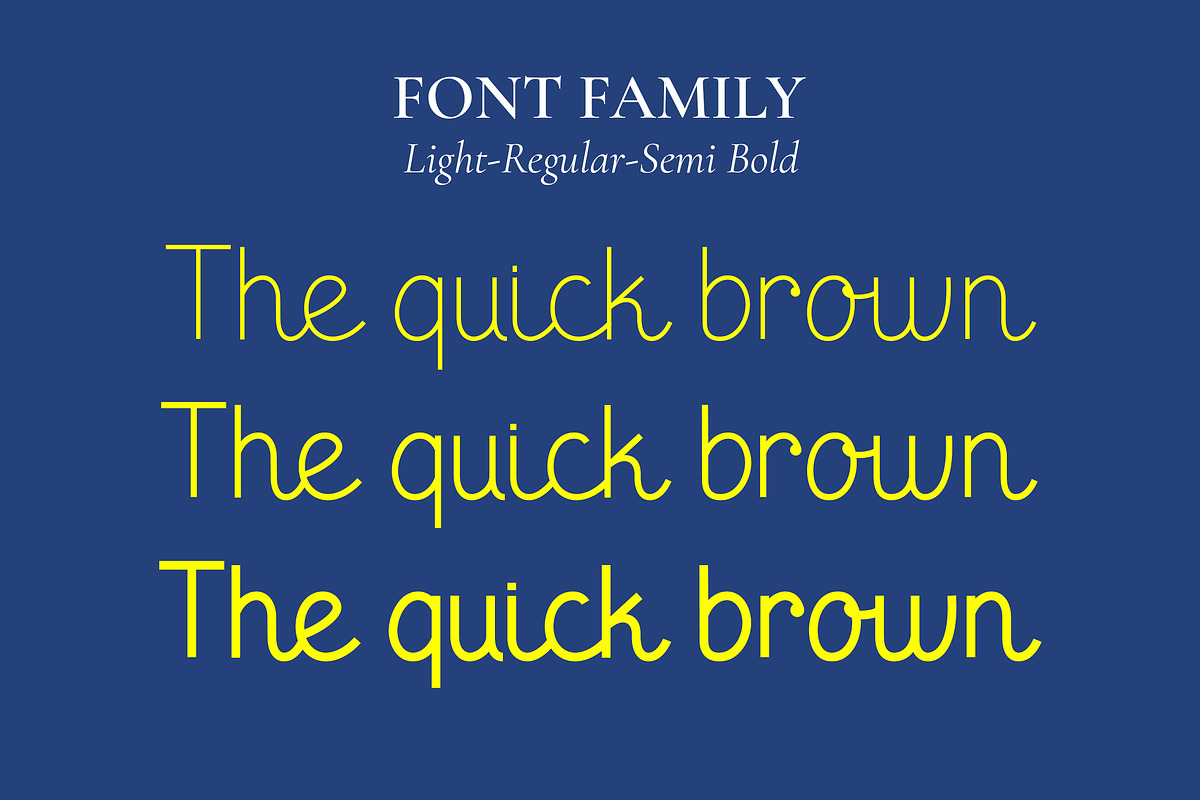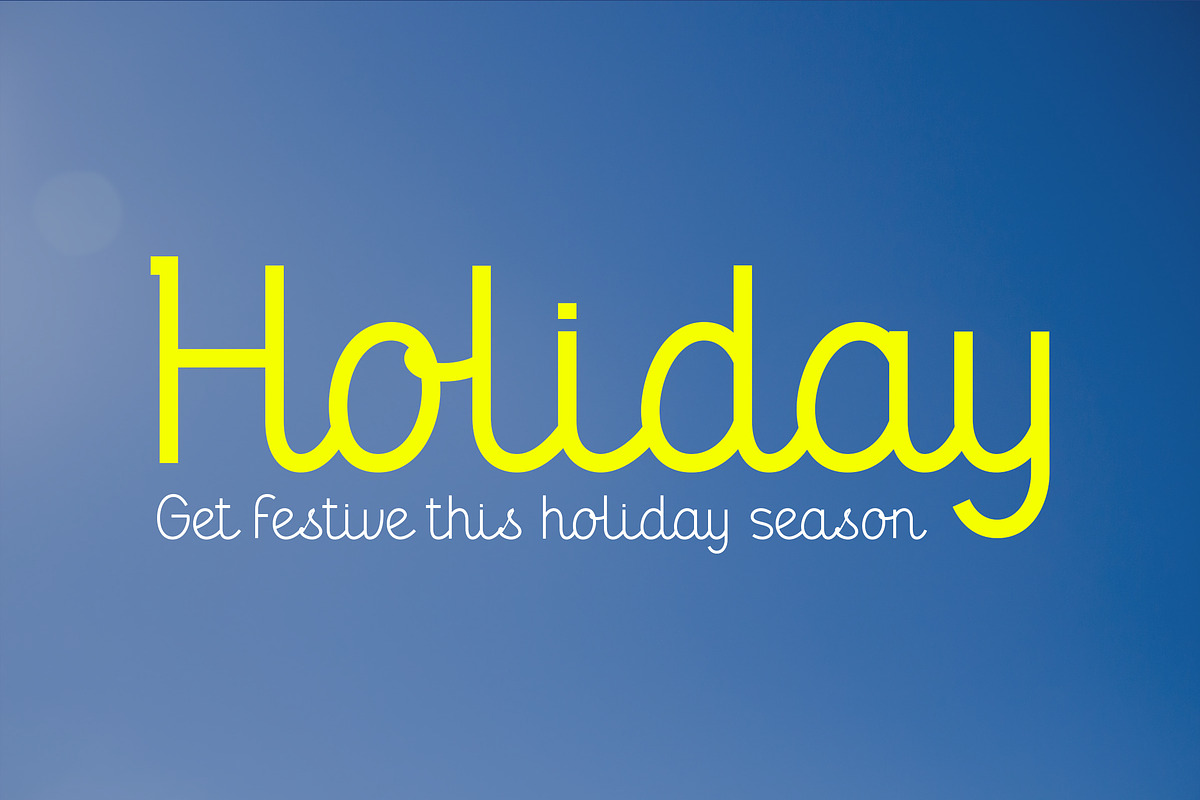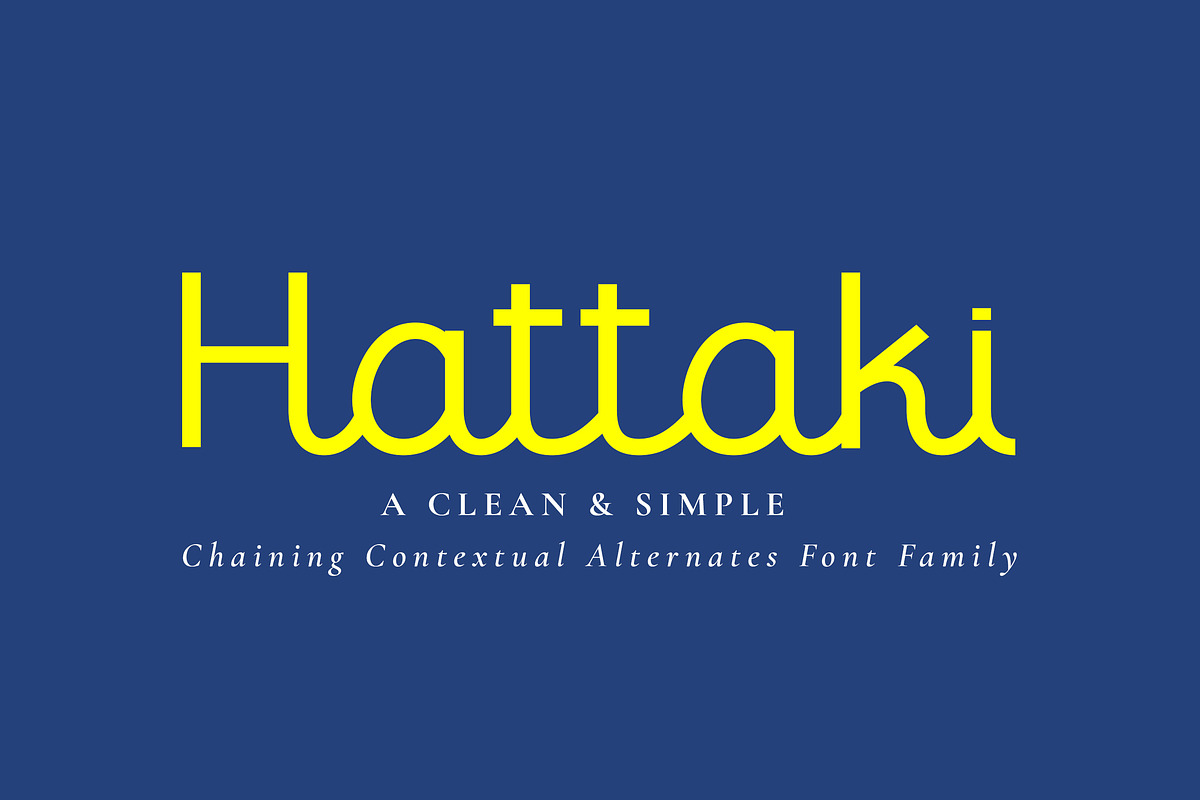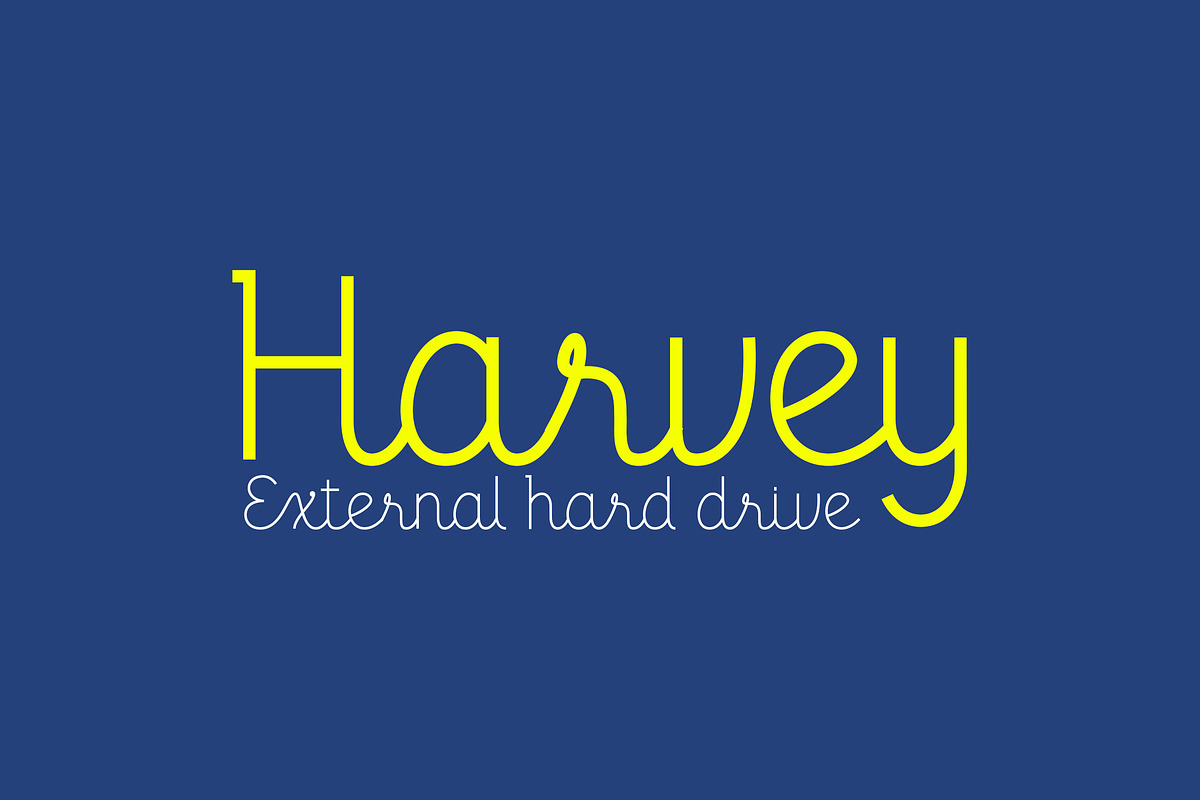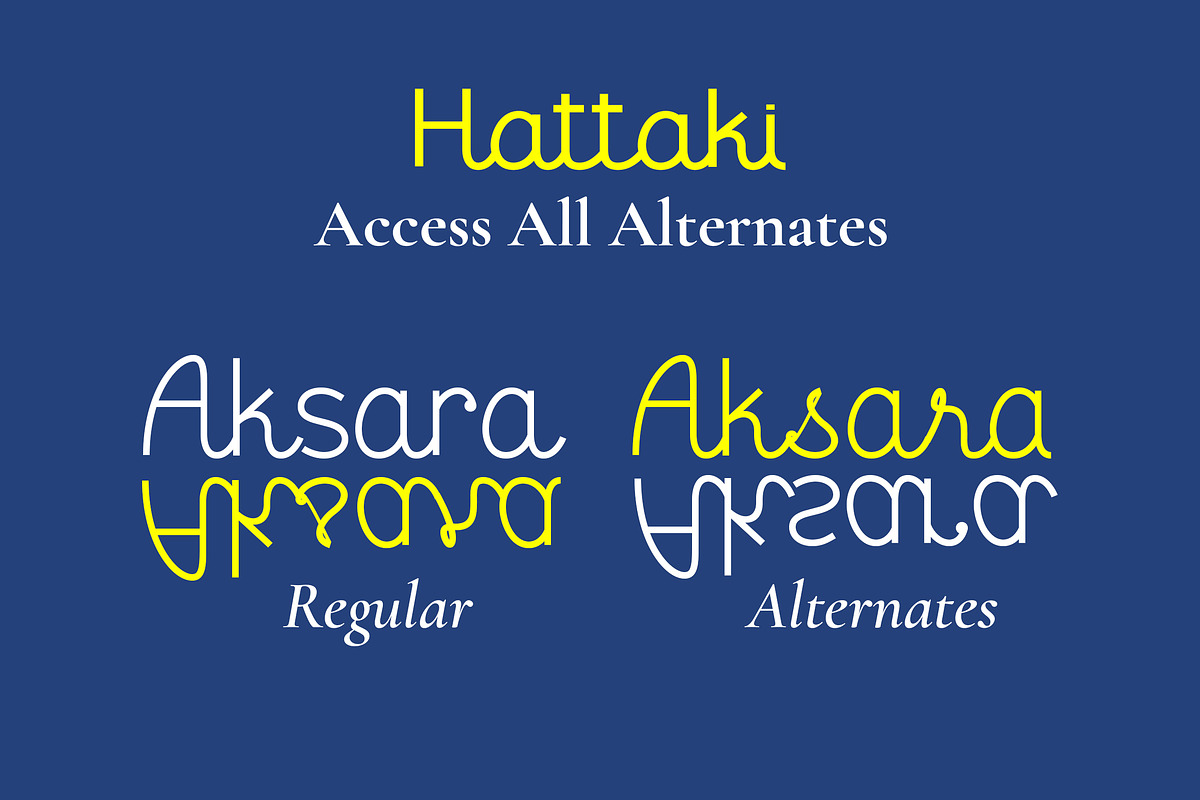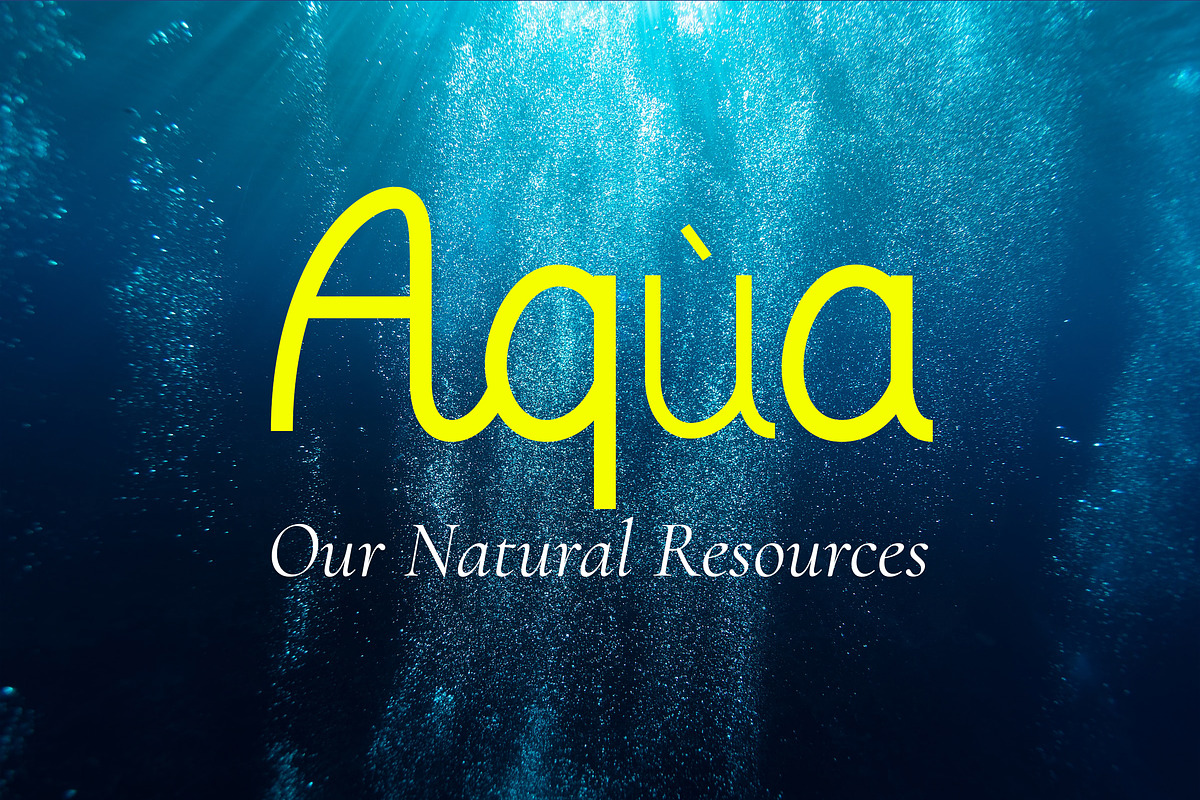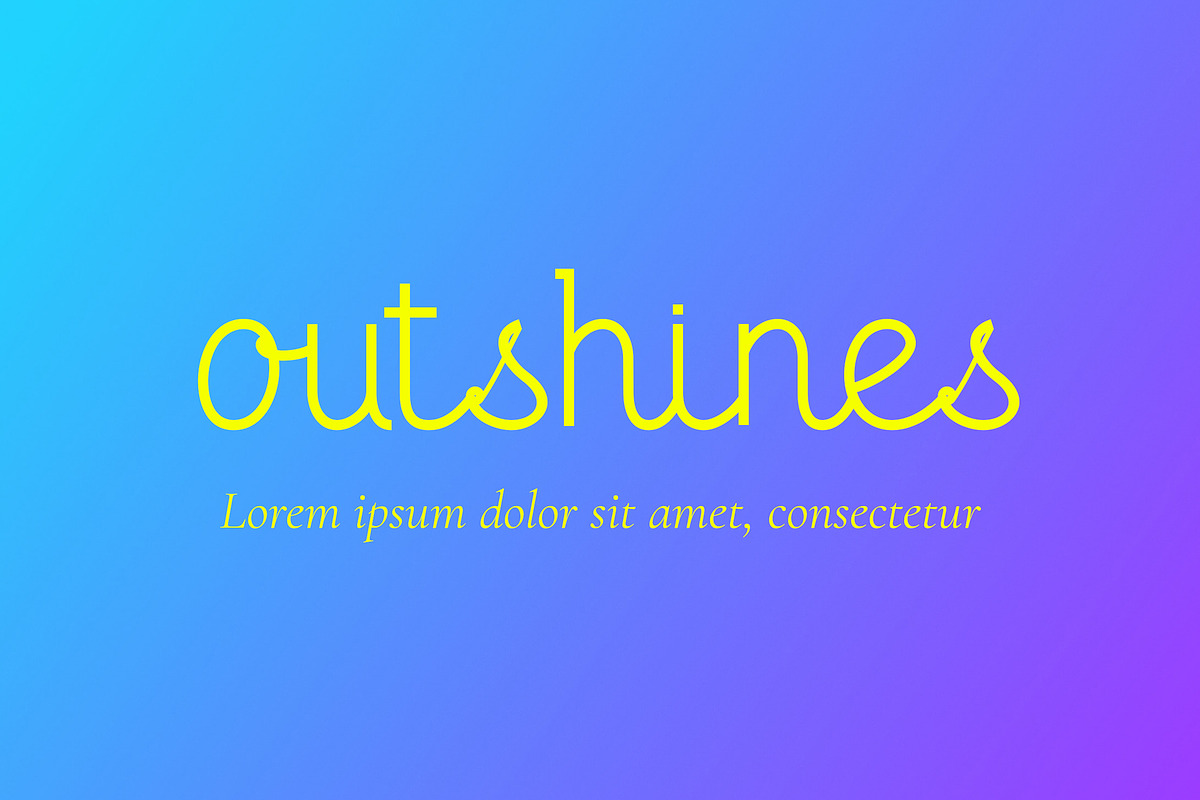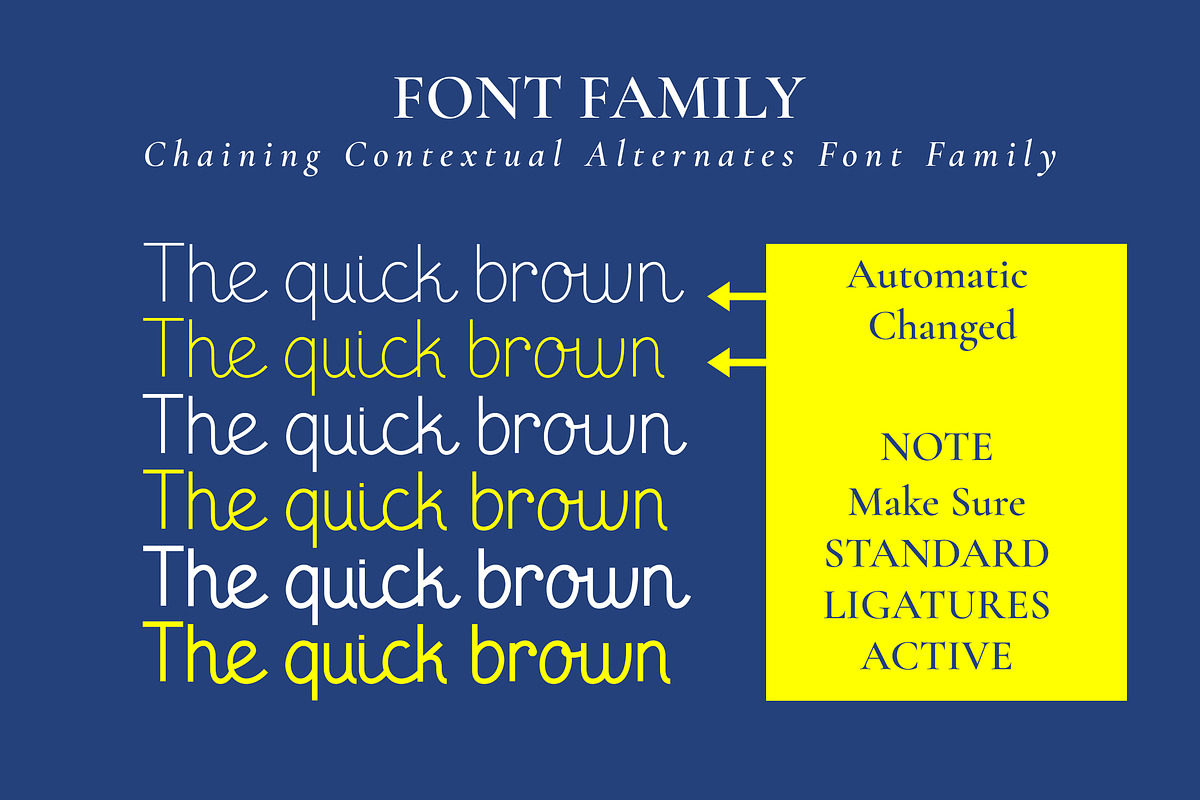
Hattaki - a Clean and Simple Font
Hattaki is a cool and modern font. Whether you’re using it for crafts, digital design, presentations, or creating greeting cards, this font has the potential to become your go-to font, whatever the occasion. This font is PUA encoded which means you can access all of the amazing glyphs alternates and ligatures with ease.